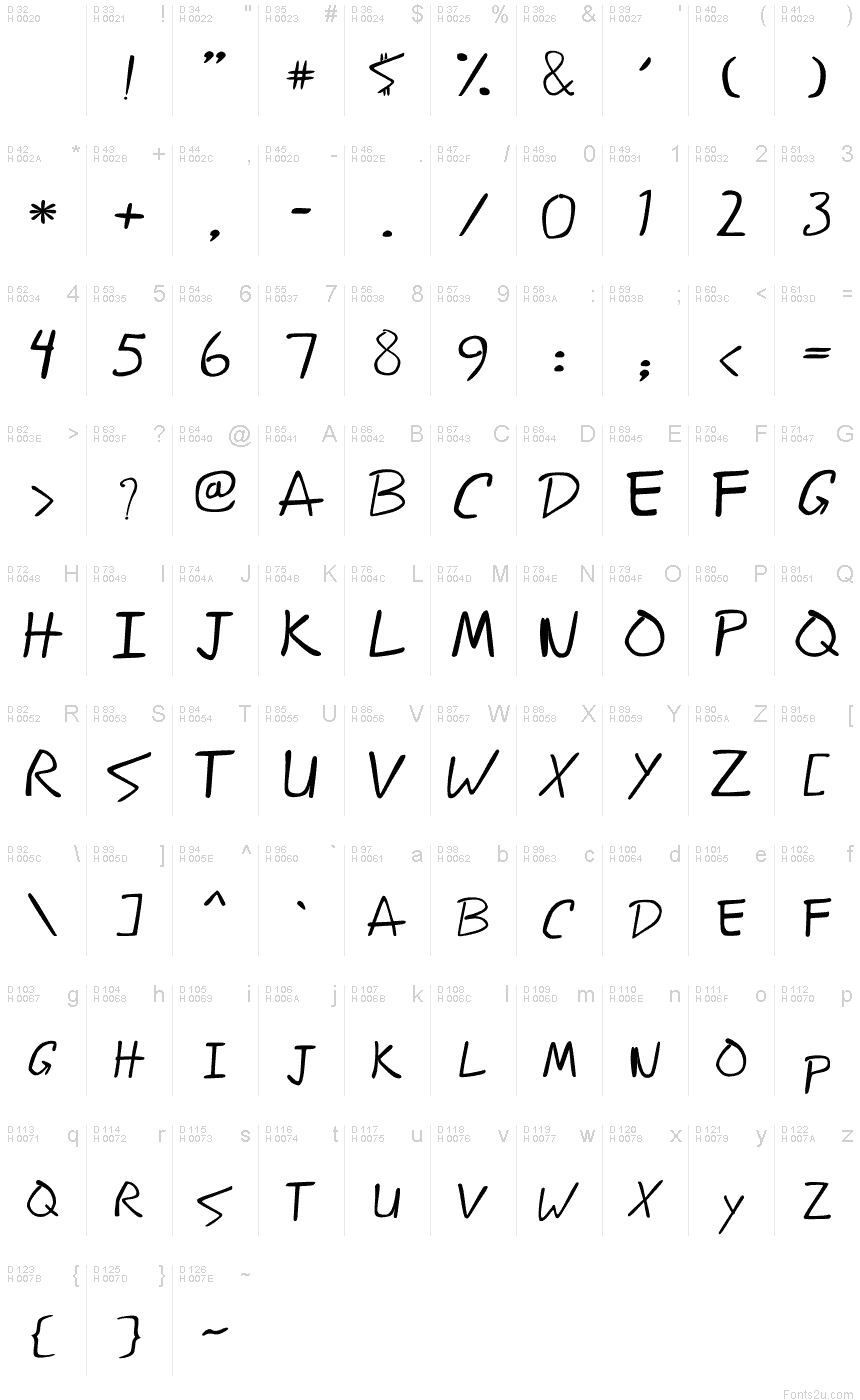
Fontageous Rendition
Fontageous Rendition font is a free handwritten typeface that captures the feel of a quick, confident marker note. Part of the Dawsons font family, it uses tall, skinny letters, loose curves, and the occasional zigzag stroke to keep things lively while still staying easy to read. The spacing gives every word a bit of air, so your text feels casual and human without turning messy or chaotic.
Using Fontageous Rendition, this free font shines on social media graphics, notebook covers, kids’ book titles, casual posters, stickers, and playful greeting cards. Its energetic rhythm adds personality to short headlines and quotes, while still working for slightly longer blurbs. Pair it with a clean, unobtrusive sans serif set in smaller sizes to keep your layouts balanced and readable.